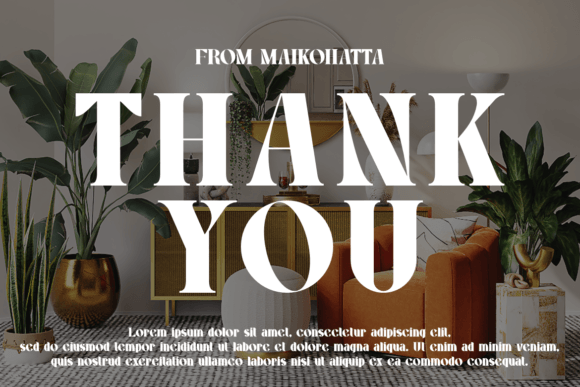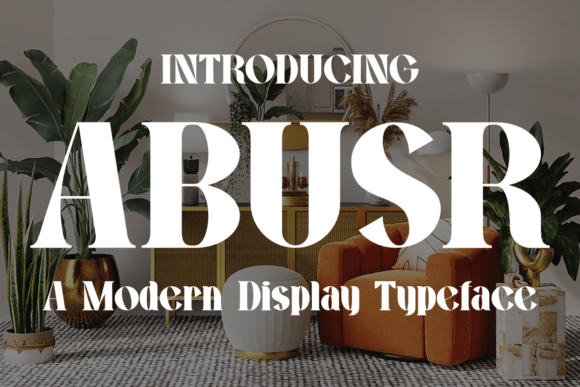
Abusr Font: The Epitome of Elegance and Sharpness in Typography
In the realm of typography, few fonts have managed to strike a balance between elegance and sharpness as effectively as Abusr Font. This typographic masterpiece is a testament to meticulous design and attention to detail, making it an ideal choice for designers and crafters seeking to elevate their visual creations.
The Design Philosophy Behind Abusr Font
Abusr Font is the result of a careful design process that prioritizes balanced proportions and impeccable alignment. Every letter within this font is crafted with precision, ensuring that each character not only stands out on its own but also contributes to a cohesive and harmonious visual experience when used in text. This attention to detail is what sets Abusr Font apart, making it a versatile tool for various design applications.
One of the key strengths of Abusr Font is its versatility. Whether you’re working on print design, creating promotional materials, or laying out a magazine, this font is well-suited for a variety of contexts. Its elegant and sharp design ensures that it can adapt to different themes and styles, making it a valuable asset for designers who work on a wide range of projects.
Abusr Font in Print Design
In print design, the quality of the font can make or break the aesthetic appeal of a project. Abusr Font, with its crisp lines and elegant curves, brings a level of sophistication to any printed material. Whether it’s a luxury brand brochure, a high-end fashion magazine, or a bespoke wedding invitation, Abusr Font adds a touch of class and refinement that is hard to achieve with more generic typefaces.
Abusr Font in Promotional Materials
Promotional materials are often the first point of contact between a brand and its audience, making it crucial to leave a lasting impression. Abusr Font, with its unique blend of elegance and sharpness, can help brands stand out in a crowded marketplace. From business cards to billboards, this font ensures that the message is not only communicated clearly but also with style and impact.
Abusr Font in Magazine Layouts
Magazines offer a platform for creative expression, and the choice of font plays a significant role in defining the publication’s character. Abusr Font, with its readability and aesthetic appeal, is an excellent choice for magazine layouts. It can be used for headlines to grab attention or for body text to ensure a smooth reading experience. The font’s versatility allows it to complement a wide range of editorial styles, from fashion and lifestyle to business and technology.
Why Designers and Crafters Love Abusr Font
Designers and crafters love Abusr Font for several reasons. Firstly, its elegant and sharp design makes it a go-to choice for projects that require a touch of sophistication. Secondly, its versatility means it can be used across different design applications, saving time and effort in searching for multiple fonts for different projects. Lastly, the meticulous attention to detail in its design ensures that it stands out in a sea of more generic fonts, allowing designers to create unique and memorable visual experiences.
Abusr Font is more than just a typeface; it’s a design tool that offers a perfect blend of elegance and sharpness. Its meticulous design, balanced proportions, and impeccable alignment make it an excellent choice for a variety of design applications, from print design and promotional materials to magazine layouts. For designers and crafters looking to elevate their projects and create visually stunning works, Abusr Font is undoubtedly a typographic masterpiece worth considering.
In conclusion, Abusr Font stands out as a versatile and elegant typeface that can enhance the visual appeal of any design project. Its combination of sharpness and elegance, coupled with its versatility across different design applications, makes it a valuable asset for designers and crafters seeking to create memorable and impactful visual experiences.